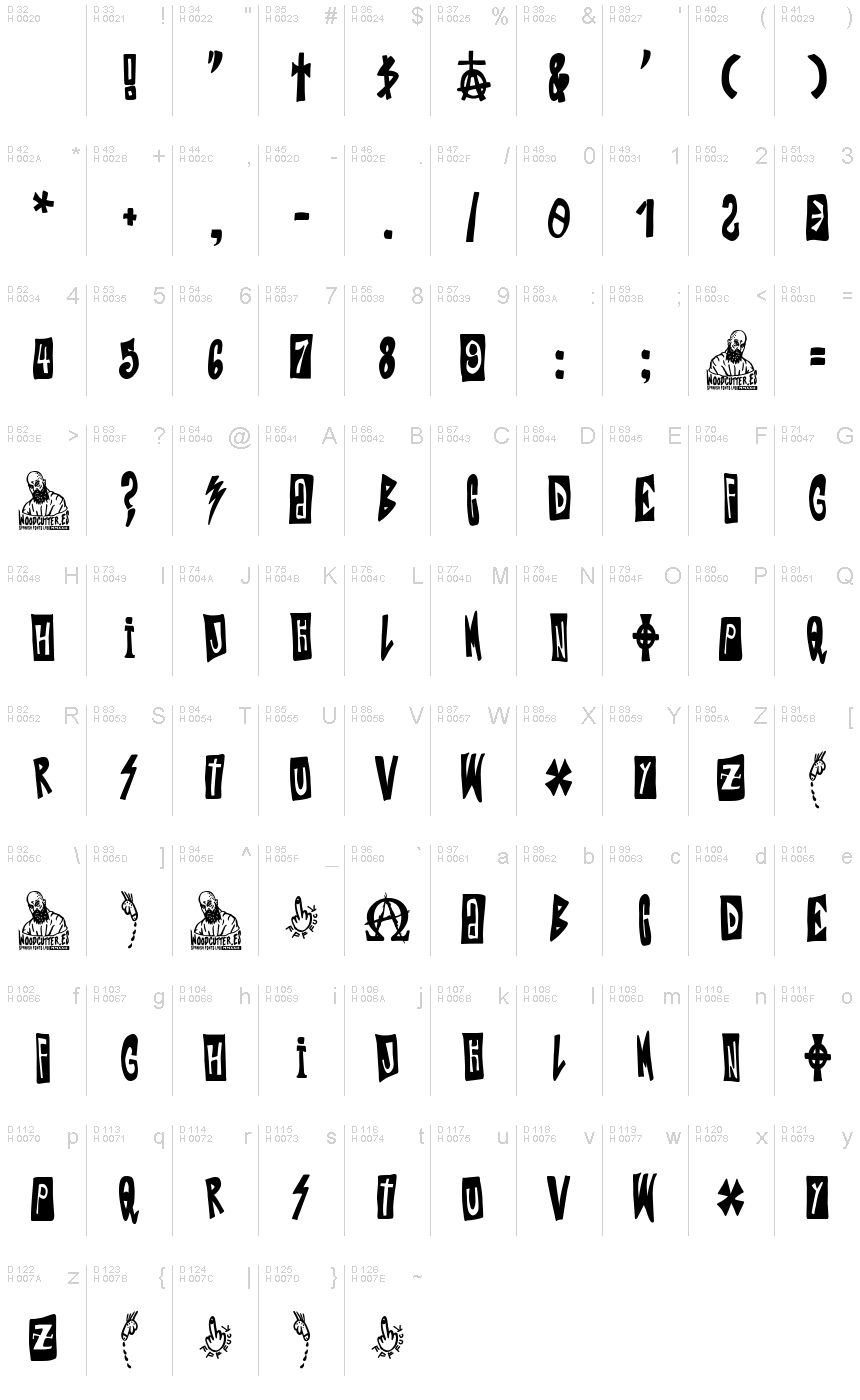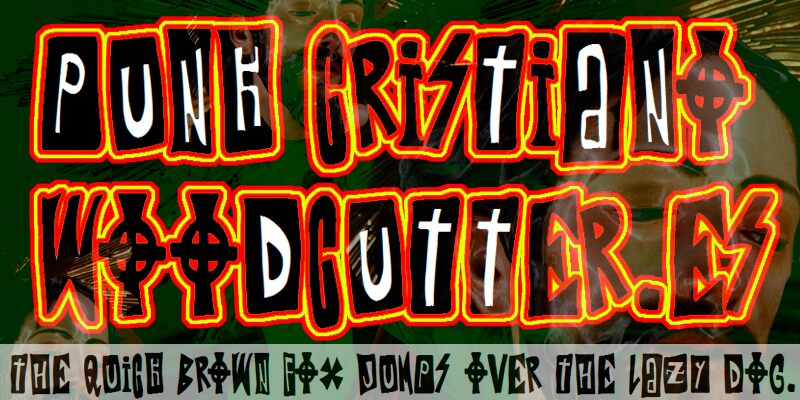
Punk Cristiano
Punk Cristiano font by Woodcutter is a free display font with a distorted, irregular, and condensed style. The rebellious and edgy appearance of this alphabet comes from the rounded triangular letter design and unregularly sized individual strokes. In addition to these characteristics, nonuniform letter size adds to its opulent rugged look.